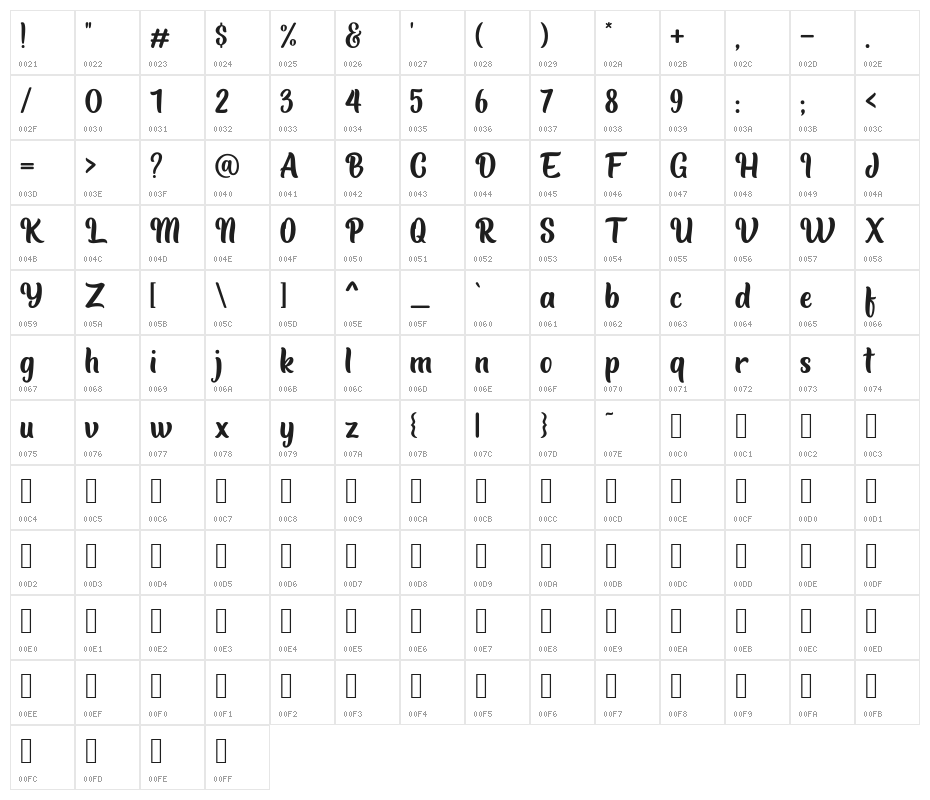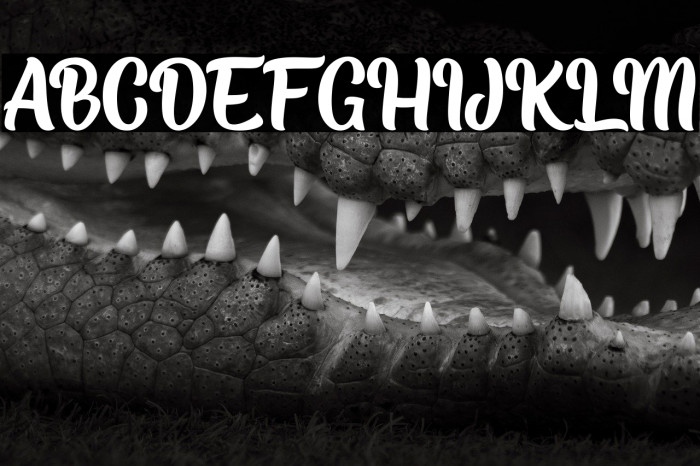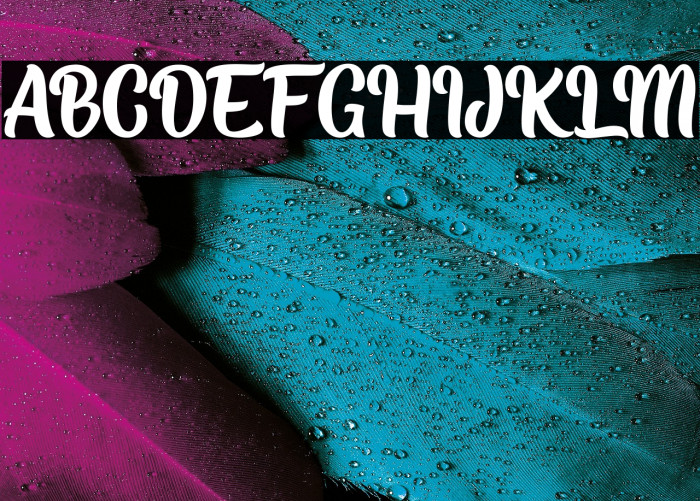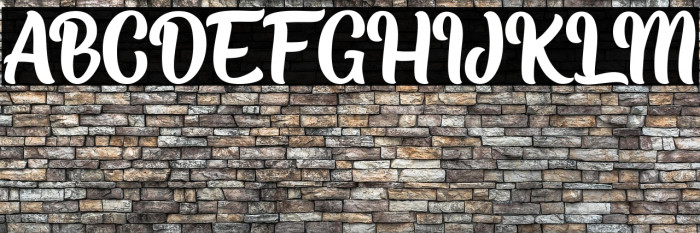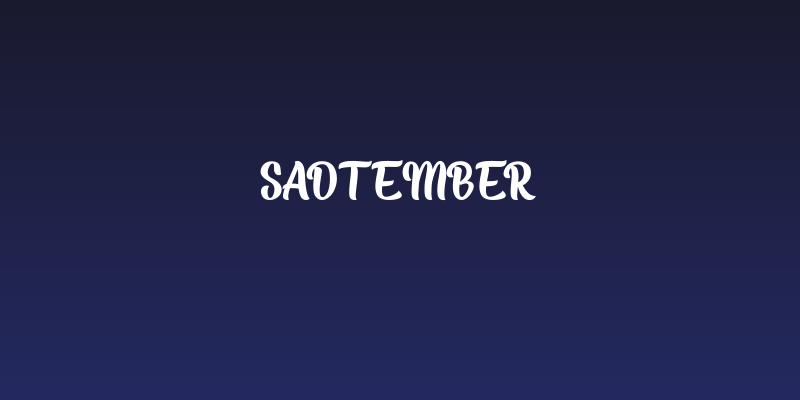
Sadtember Font
Sadtember Description
This font features a playful and bold script style with a handwritten feel. The characters are rounded and slightly slanted, giving it a casual and friendly appearance. The uppercase letters are distinct with a consistent stroke width, while the lowercase letters maintain a smooth flow. Numbers and special characters are designed to match the overall aesthetic, ensuring uniformity across all glyphs. The font's style is both approachable and dynamic, making it suitable for various creative applications.
| Overall Style | Playful, Casual |
| Proposed Projects | Ideal for greeting cards, invitations, playful branding, and social media graphics. |